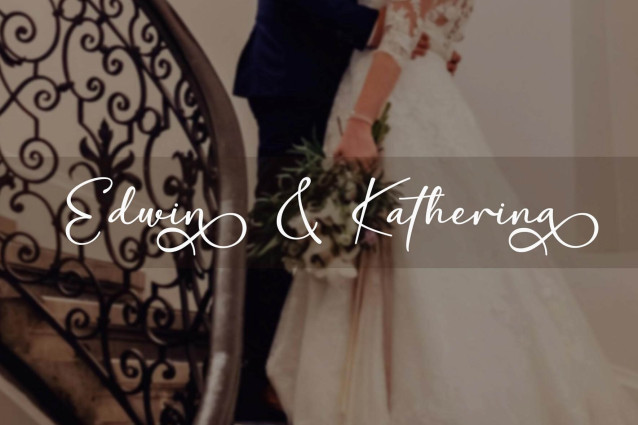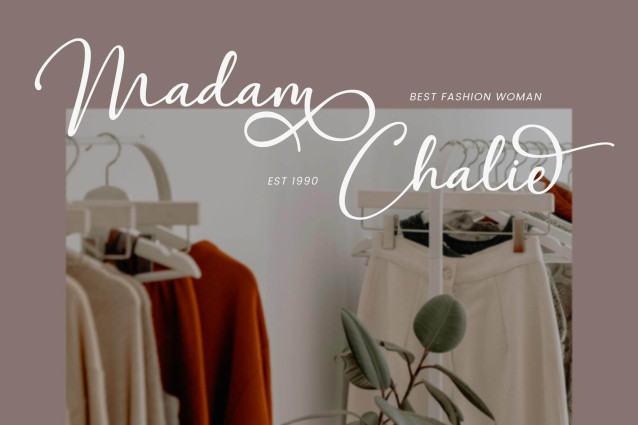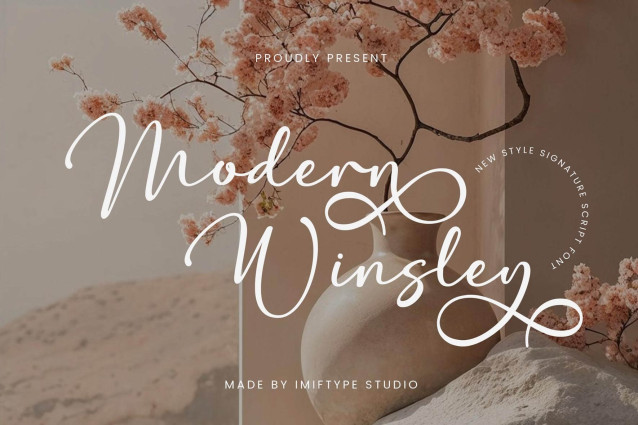
Modern Winsley Font
Modern Winsley Font is a sophisticated and modern script font that exudes elegance and style. Its clean lines and subtle curves create a timeless appeal, perfect for adding a touch of sophistication to any design. Whether you’re designing a logo, creating wedding invitations, or crafting social media graphics, Modern Winsley will elevate your project.